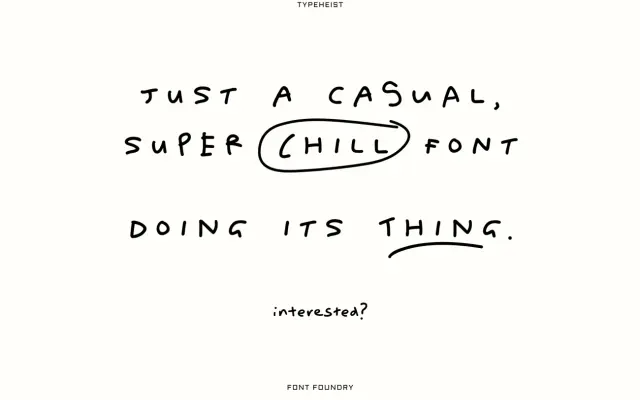
Bad Beans
A marker-style handwritten script that leans into imperfection, with contextual alternates cycling through letter variations to avoid repetition.
Built around the aesthetic of scribbled notes and skatepark doodles, Bad Beans mimics the uneven lines and awkward charm of informal marker lettering. Two sets of contextual alternates automatically rotate through character variations as you type, preventing obvious repeated glyphs and maintaining a natural handwritten rhythm. The 484-glyph set includes multilingual support for over 100 languages and 29 sketched illustrations accessible via keyboard shortcuts.
Bad Beans is a casual, marker-style handwritten script designed to mimic informal scribbled lettering with intentional imperfections, contextual alternates and uneven strokes.